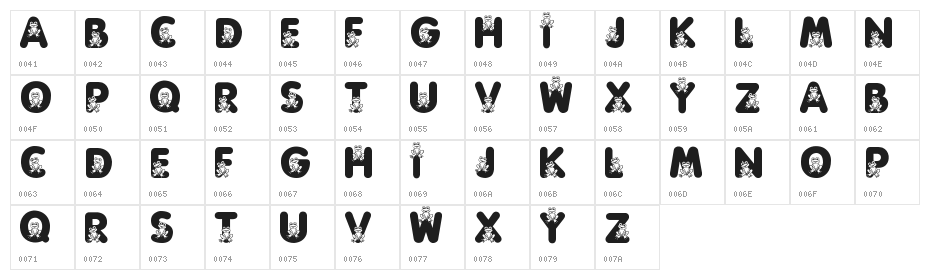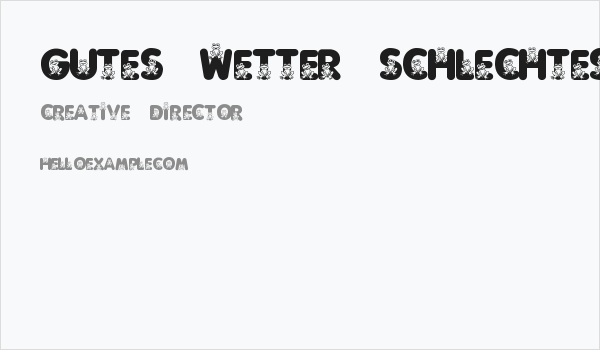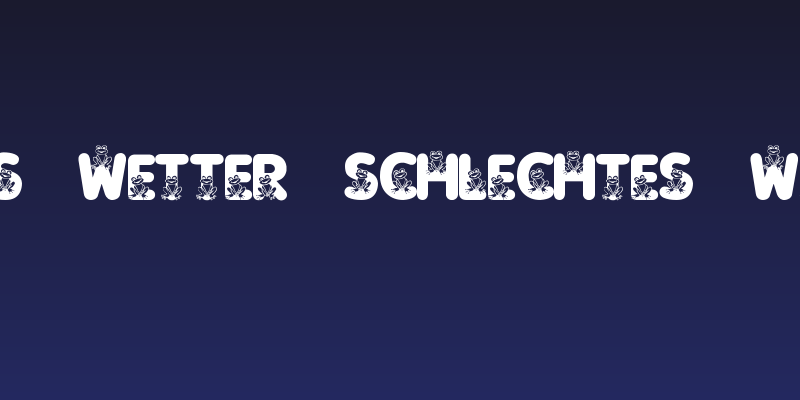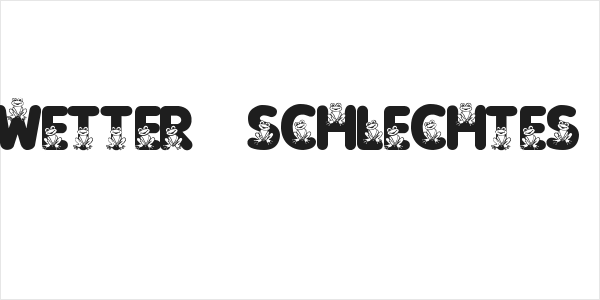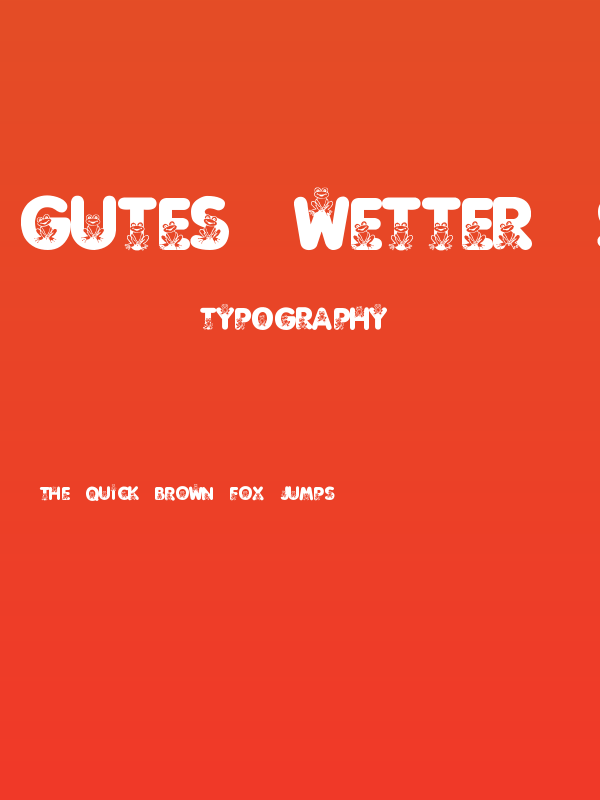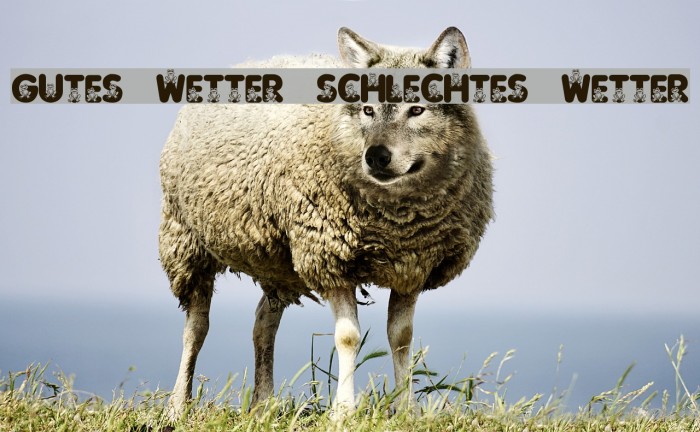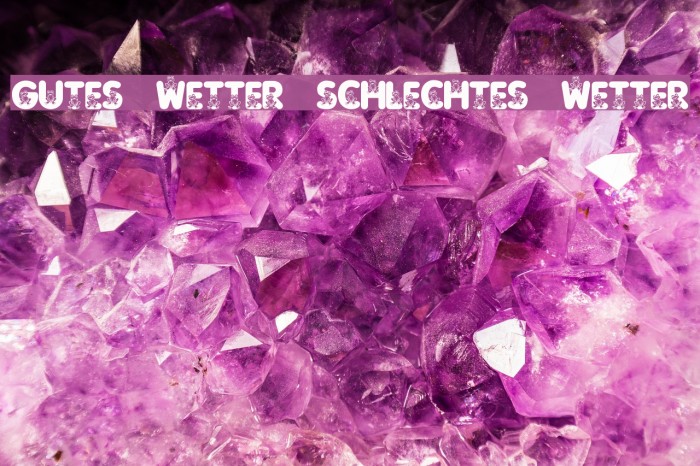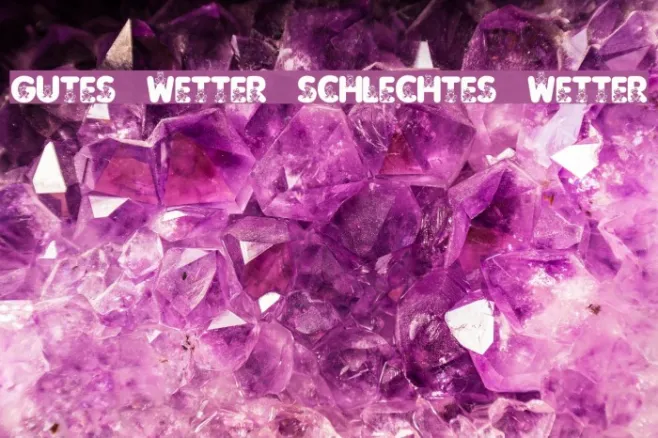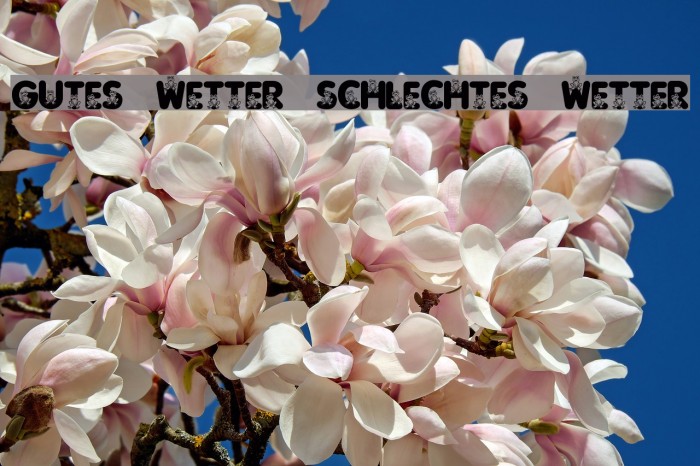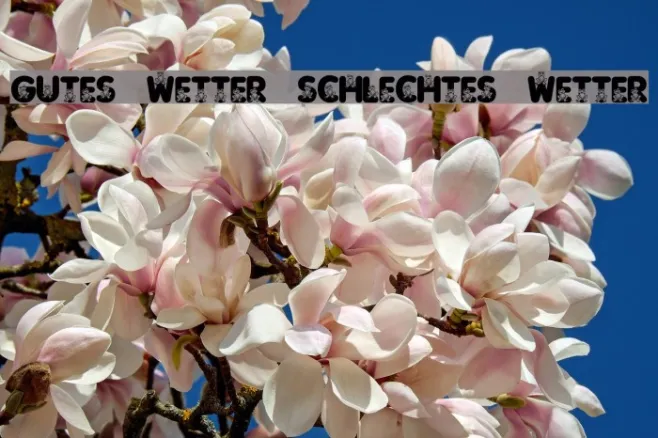
Gutes Wetter, schlechtes Wetter Font
Gutes Wetter, schlechtes Wetter Description
This playful and decorative font features bold, rounded letters with a unique twist. Each character is adorned with a whimsical frog illustration, adding a touch of fun and creativity. The font maintains a consistent weight throughout, with a strong presence that makes it ideal for eye-catching designs. The characters are evenly spaced, ensuring readability while maintaining the decorative elements. This font is perfect for projects that require a lively and engaging aesthetic, such as children's books, playful branding, or themed event invitations.
| Overall Style | Playful, Whimsical |
| Proposed Projects | Ideal for children's books, playful branding, themed event invitations, and creative posters. |